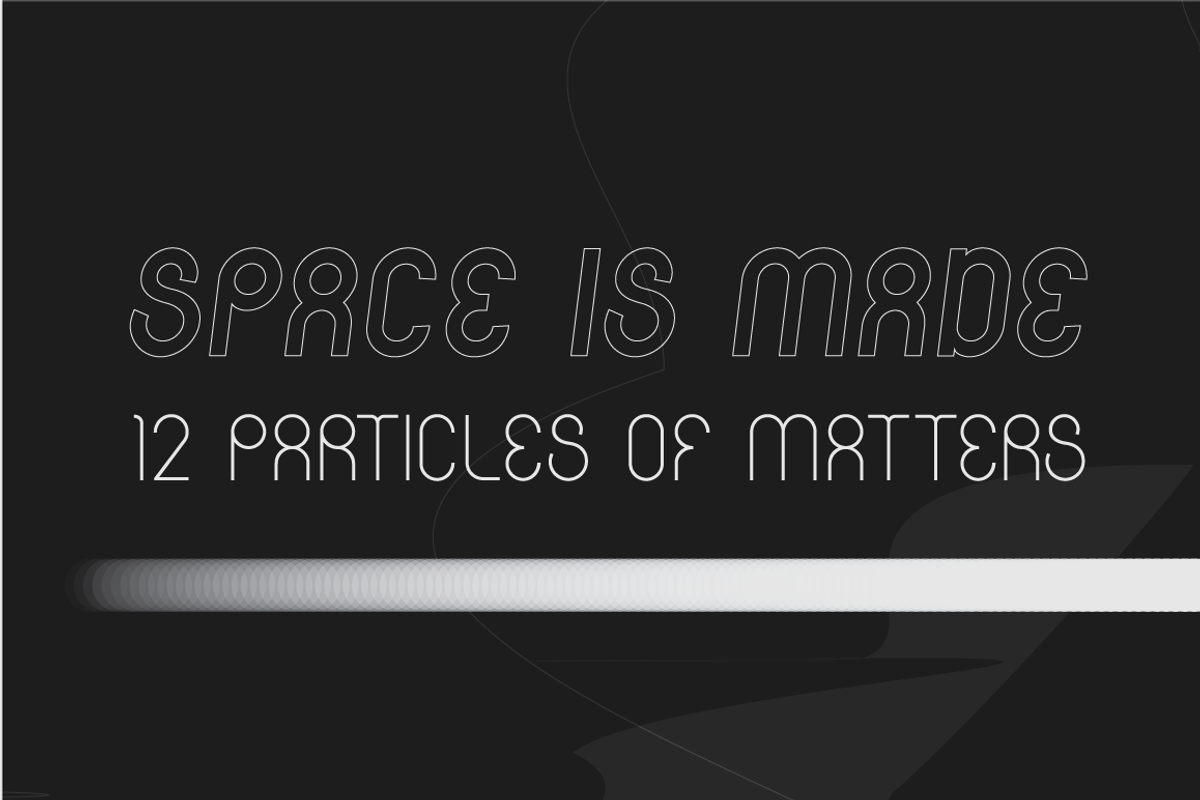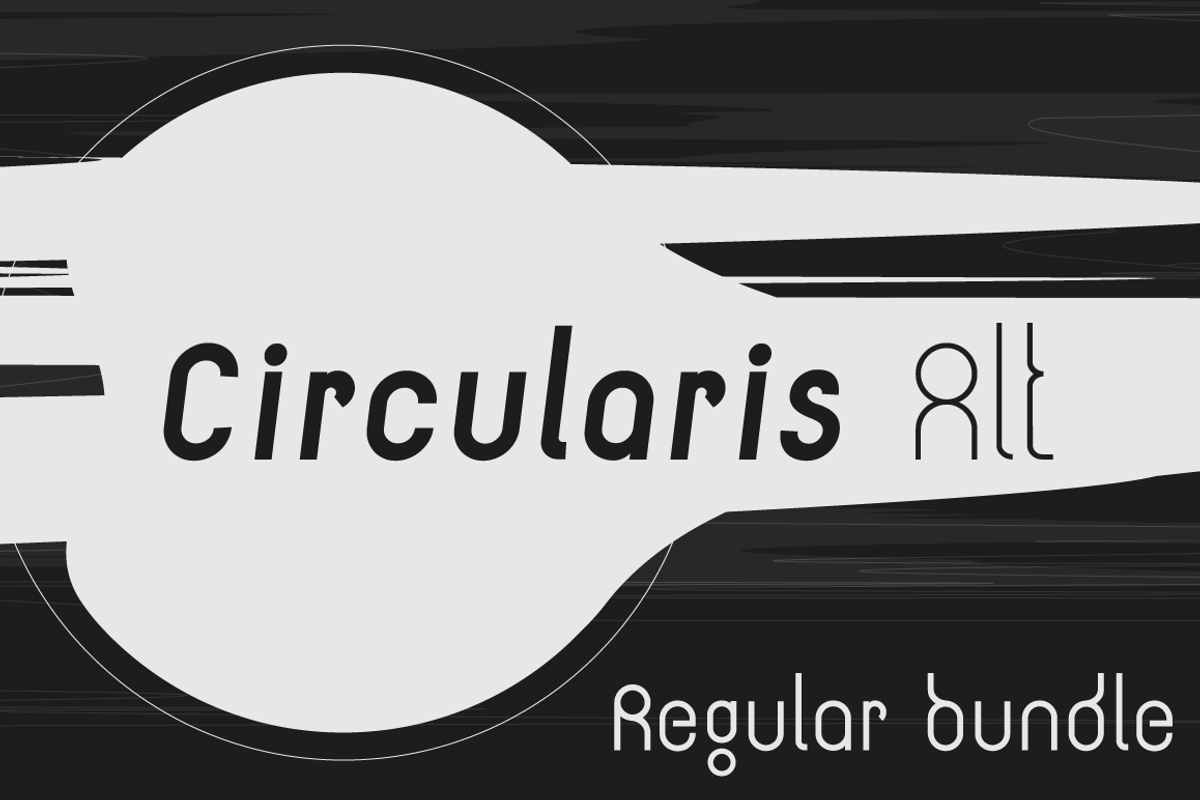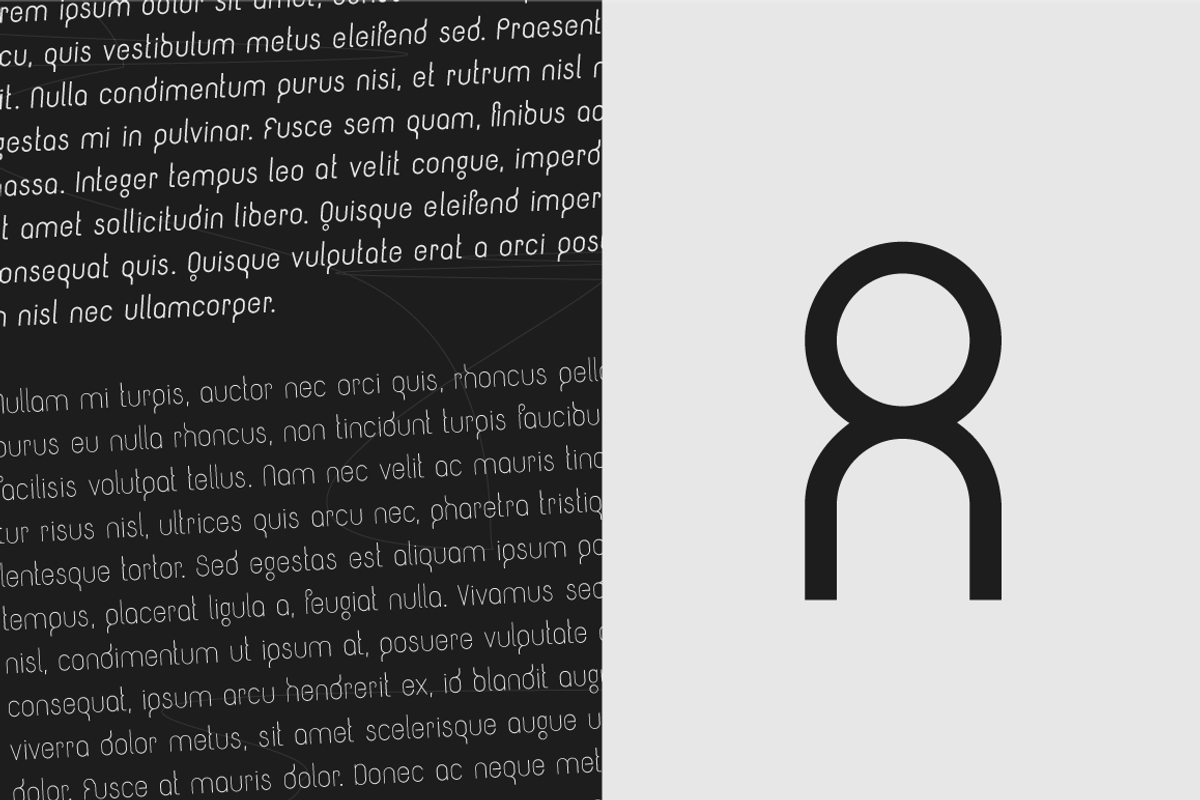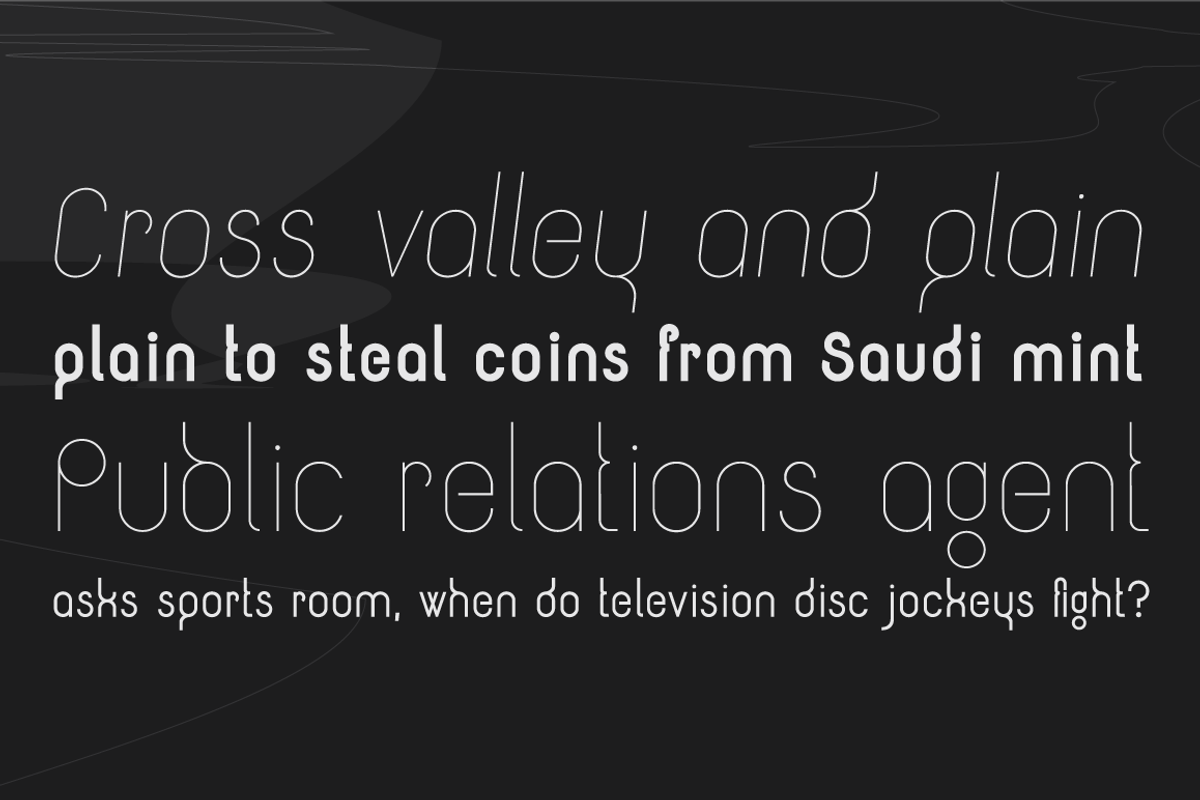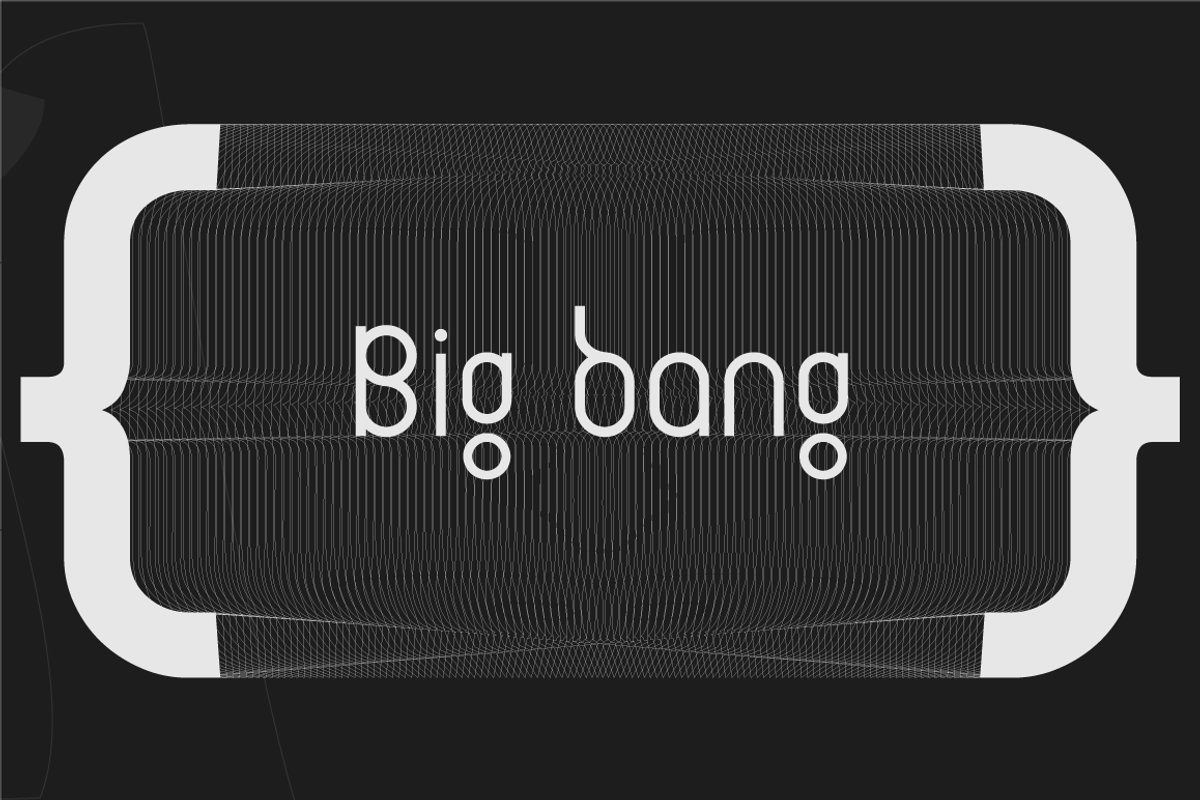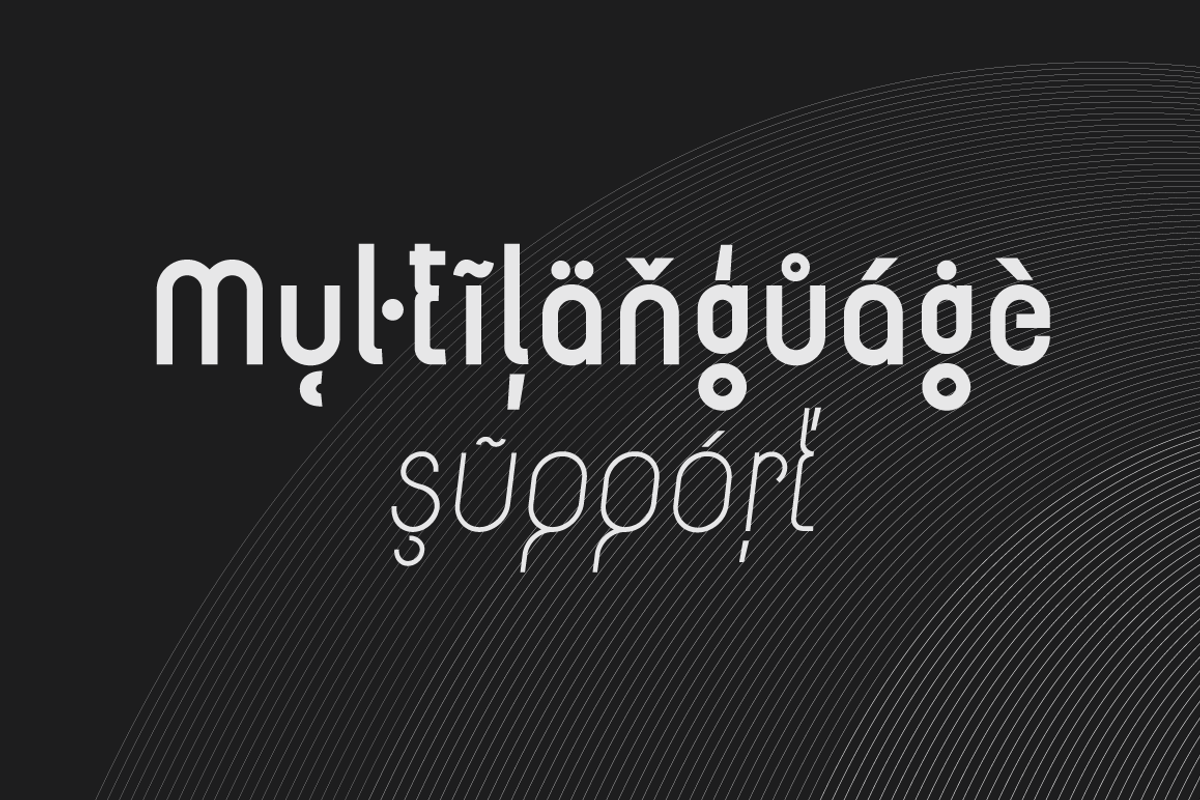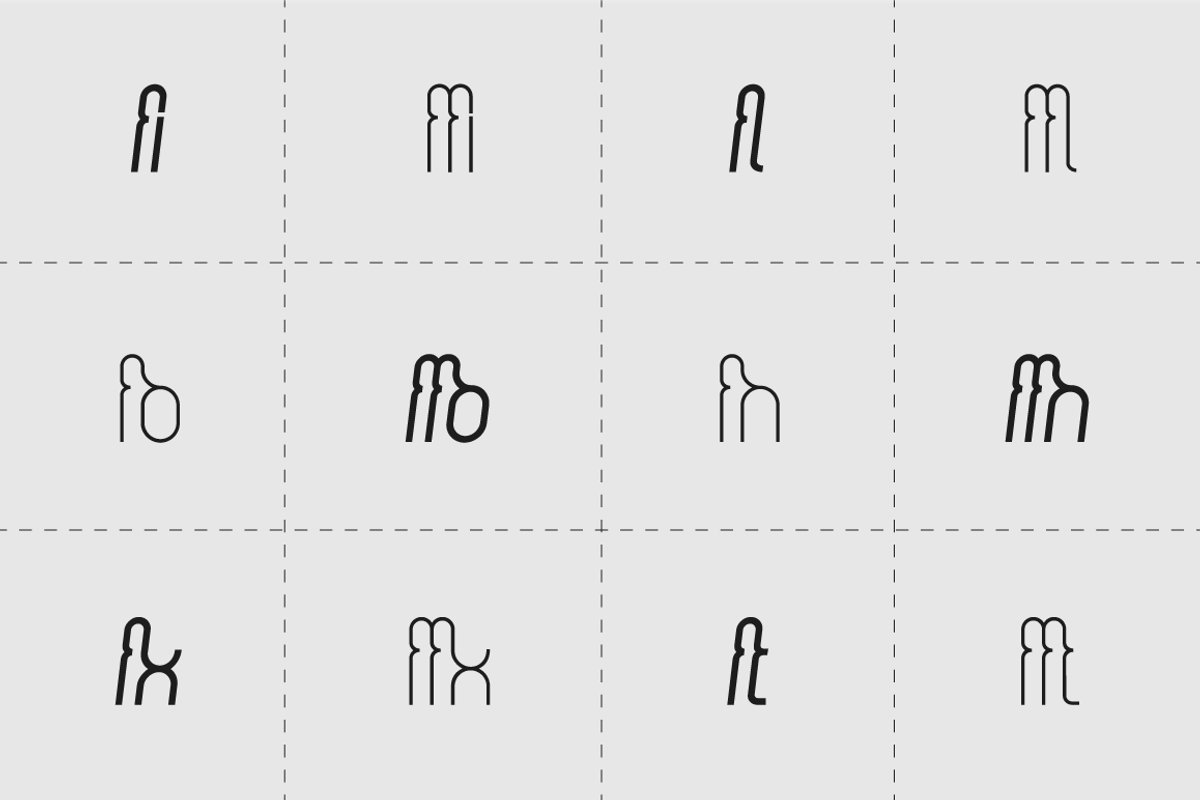
Circularis Alt Regular /+free italic
The Circularis Alt family includes 1 family, 8 styles and weights - eight uprights with eight italics.
Circularis is characterized by the nice and smooth unordinary circle geometric contruction inspired at last century, nice readability, low price and finaly many variation of useful.